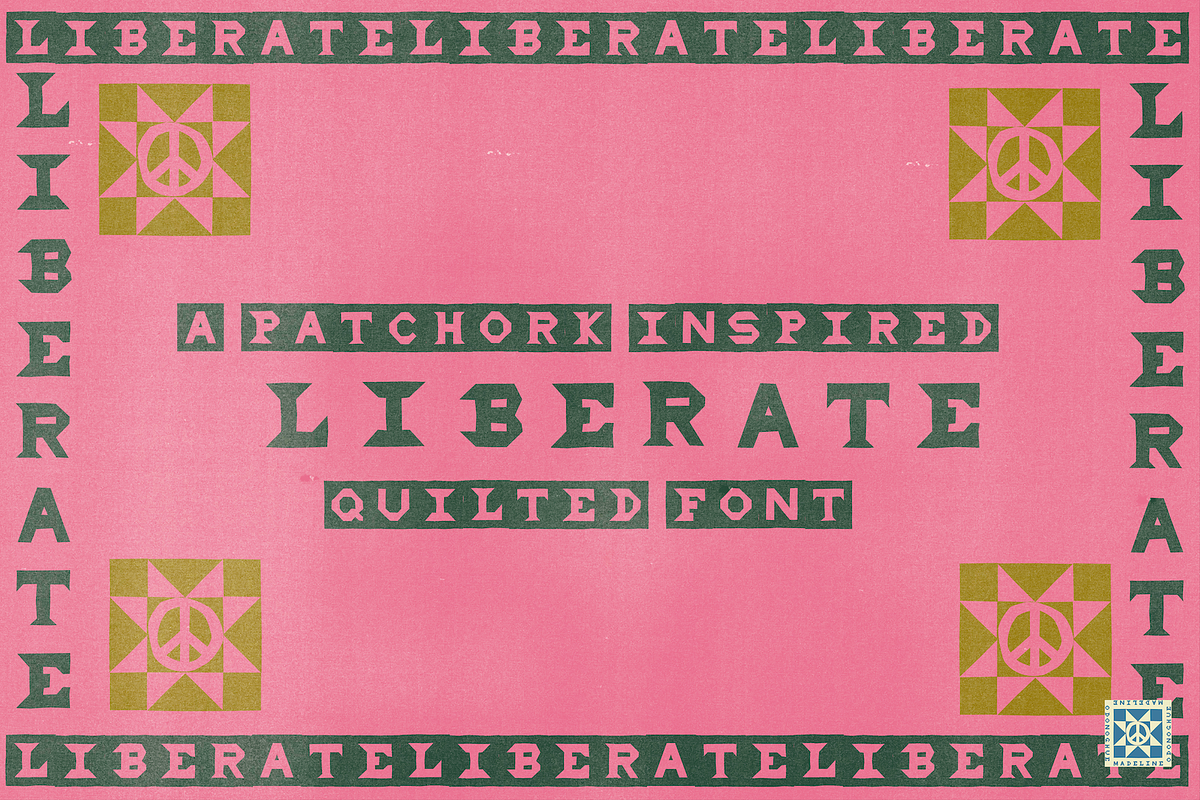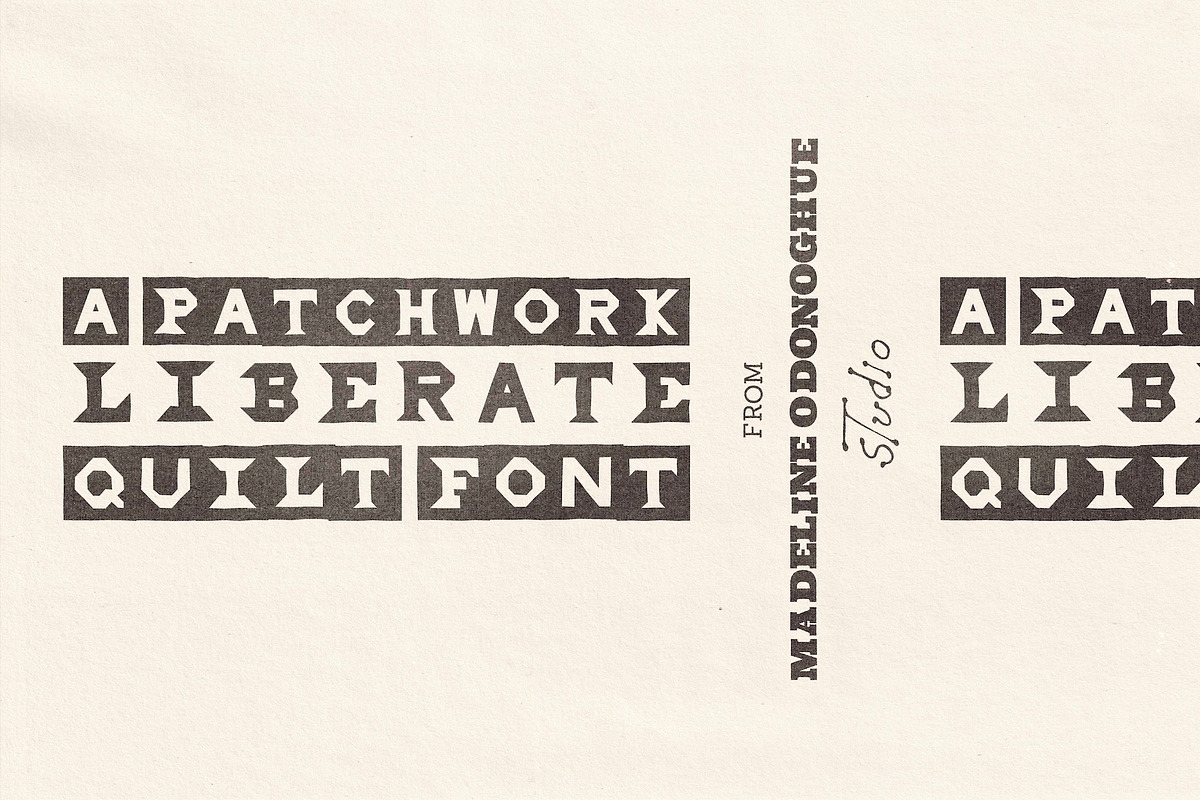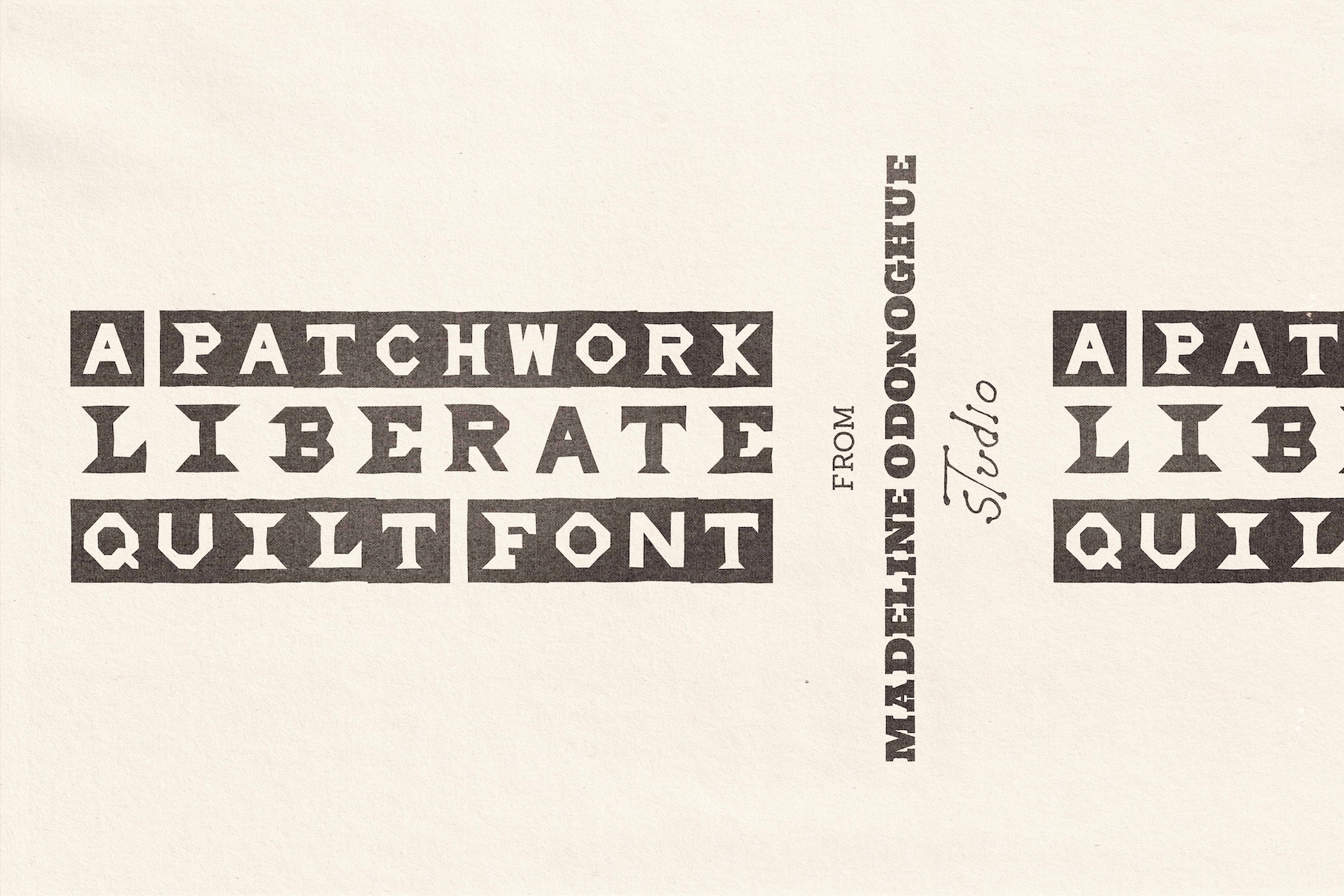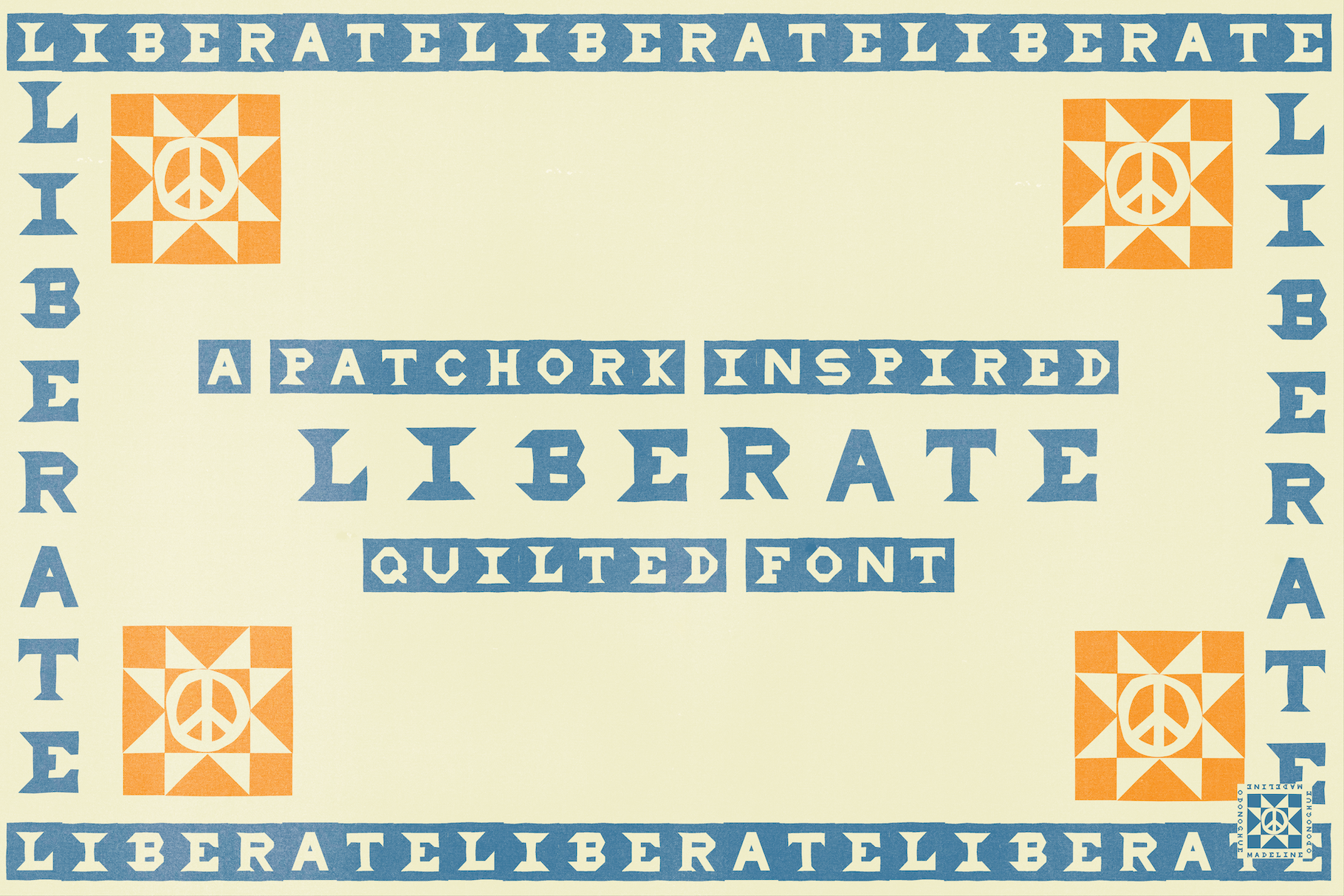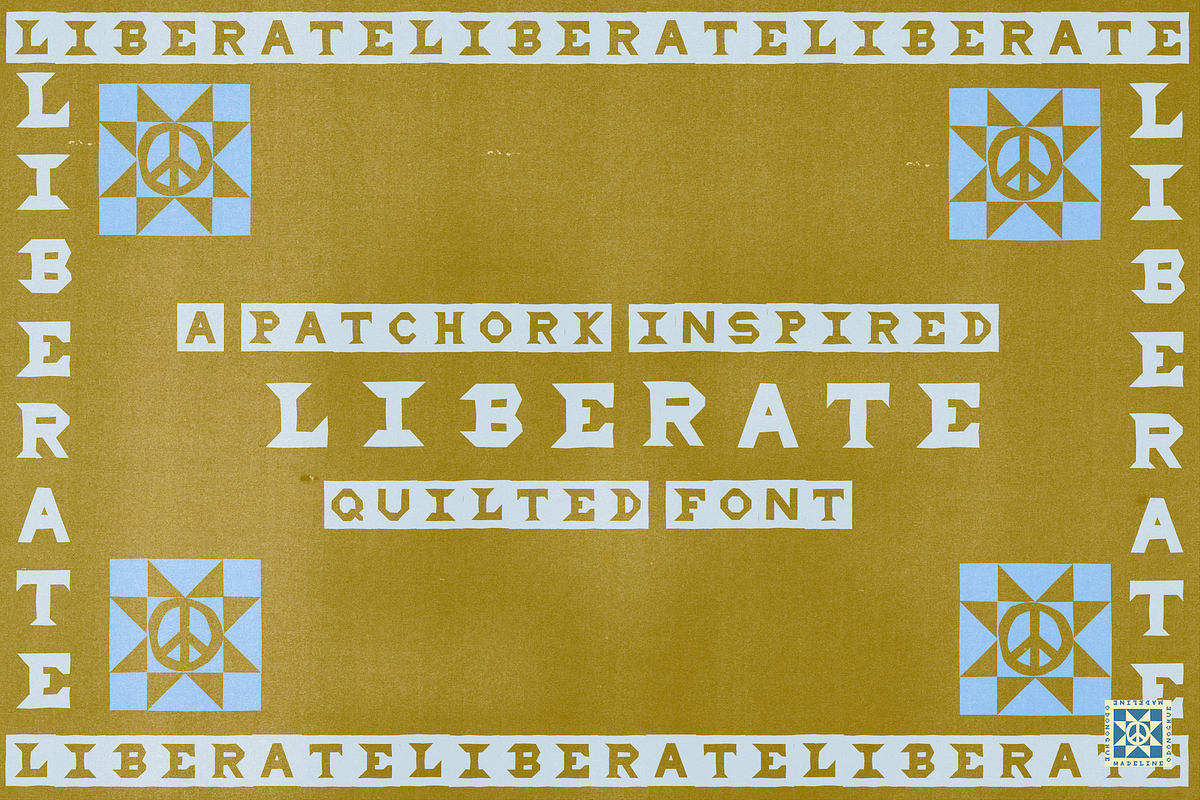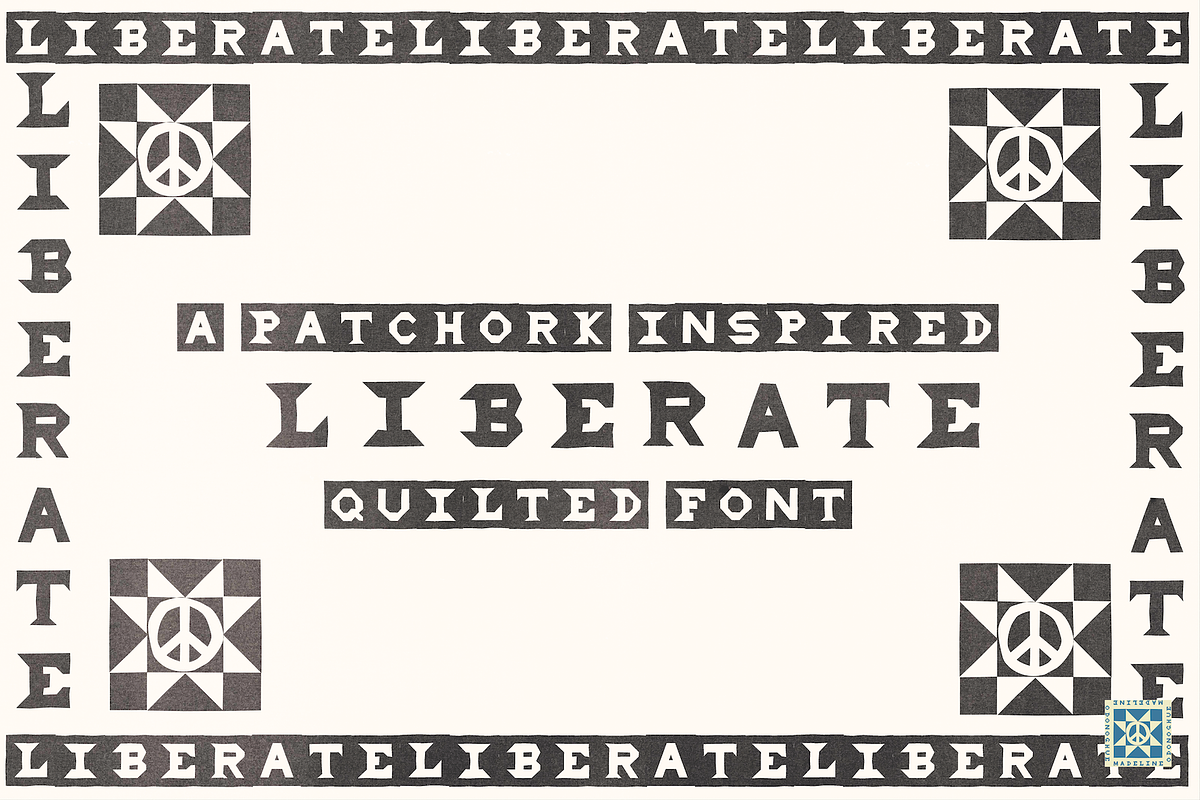
Liberate Hand Crafted Font
LIBERATE is a deliberately imperfect display font inspired by the history of quilting as protest and women’s craft as a form of liberation.
Drawing from stitched messages, patched fabrics, freedom quilts, protest banners and hand-made archives, the letters feel assembled slowly and intentionally — like pieces of fabric joined together to form something larger.
Quilting has long been a visual language used when other forms of authorship were denied. During the women’s liberation movement, textile practices were reclaimed as acts of resistance rather than domestic obligation — work made by hand, shared in community, and used to say what could not always be spoken aloud.
LIBERATE carries that spirit into typography.
A Deliberately Imperfect Display Font This all-caps display font is intentionally imperfect. Letters sit slightly off-grid, edges wobble, and spacing resists perfect uniformity — echoing the rhythm of hand-cut fabric, patched seams and movement-led making.
Each character feels constructed rather than drawn, assembled piece by piece like a quilt block.
LIBERATE is not polished or neutral — it is expressive, human and quietly defiant.
Protest posters and activist design
Political graphics and community campaigns
Editorial layouts and art publications
Album artwork and music-led visuals
Handmade branding and craft-inspired design
Feminist and social movement projects
Uppercase A–Z
Lowercase a–z
Numbers 0–9
Basic punctuation
Font styles included:
Primary uppercase letterforms — simple open shapes
Lowercase quilt-block characters — patchwork inspired forms
Alternate thinner uppercase style — adds variation and rhythm
LIBERATE is designed to be intentionally imperfect.
Some letters may appear slightly misaligned, uneven, or irregular in spacing. These characteristics are part of the design and reflect the visual language of hand-made quilting, patchwork construction and protest craft traditions.
This font works best as a display typeface, where its character and handmade texture can shine.
LIBERATE is both a design tool and a tribute — honouring women’s craft as a form of expression, resistance and collective voice.
Like liberation itself, it is built piece by piece.